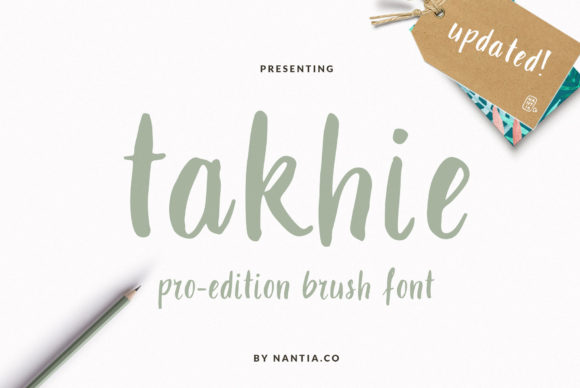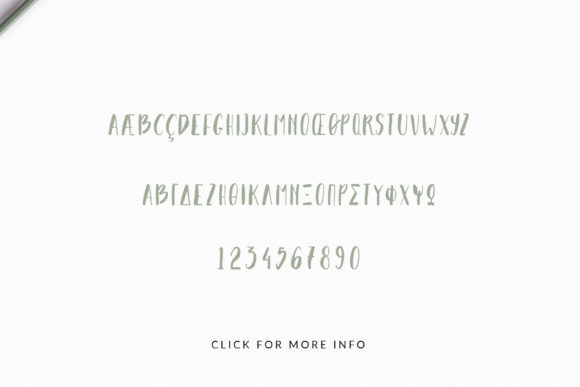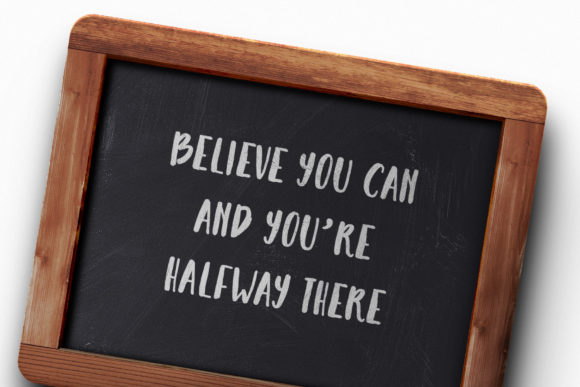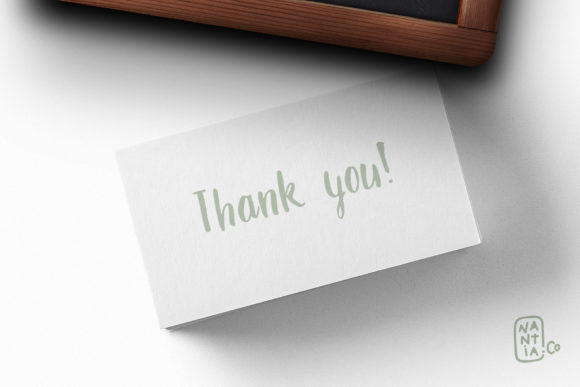
HomeScript FontsTakhie Font Script Fonts Takhie Font FacebookXPinterestWhatsApp Takhie Font Poster 2 Takhie Font Poster 3 Takhie Font Poster 4 About Takhie Font Takhie is a friendly and cute script font with a modern feel. Get inspired by its contemporary look! DOWNLOAD ON CREATIVE FABRICAThis font is sold and delivered by Creative Fabrica. Font Canyon may earn a commission if you buy through this link. People also explored Naked Power Flynster Font AZ Dramamine Font Nerd Font Ambigu Font Nitalia Font Easter Egg Flower Font Irene Font Boho Simplestory Font 339 0 TagsTakhie Font Previous articleAkakio FontNext articleCynthia Script Font LEAVE A REPLY Cancel reply Comment: Please enter your comment! Name:* Please enter your name here Email:* You have entered an incorrect email address! Please enter your email address here Website: Save my name, email, and website in this browser for the next time I comment. Personal Use Free Leorio Personal Use Free Read more about this font Moon Light Personal Use Free Read more about this font Retro Poster Personal Use Free Read more about this font Wallabys Junior Personal Use Free Read more about this font BLOG How to Install and Use Fonts on Windows, macOS, and Web Projects How to Install and Use Fonts on Windows, macOS, and Web Projects Fonts are a crucial part of design and branding. Whether you’re designing a... Top 10 Handwritten Fonts That Elevate Your Designs Best Fonts for YouTube Videos: Make Your Thumbnails Stand Out Top 7 Google Fonts Alternatives for Faster and Privacy-Friendly Web Design (2025)